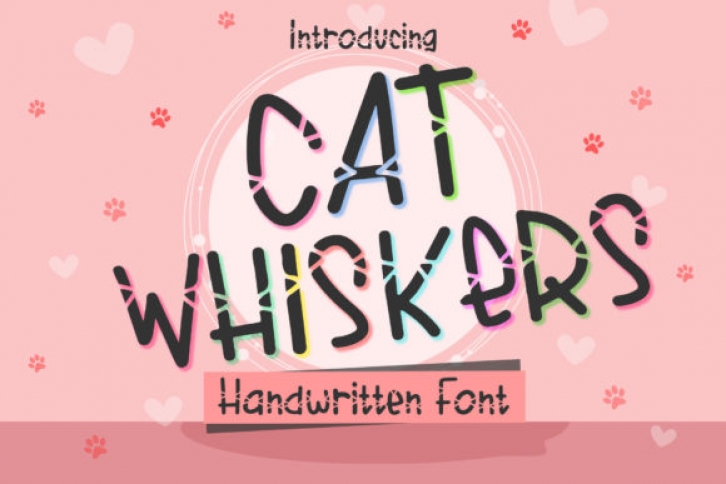
Cat Whiskers is a cute and a bit quirky handwritten font. This font is perfect for children themed designs, especially when combined with bright colors.